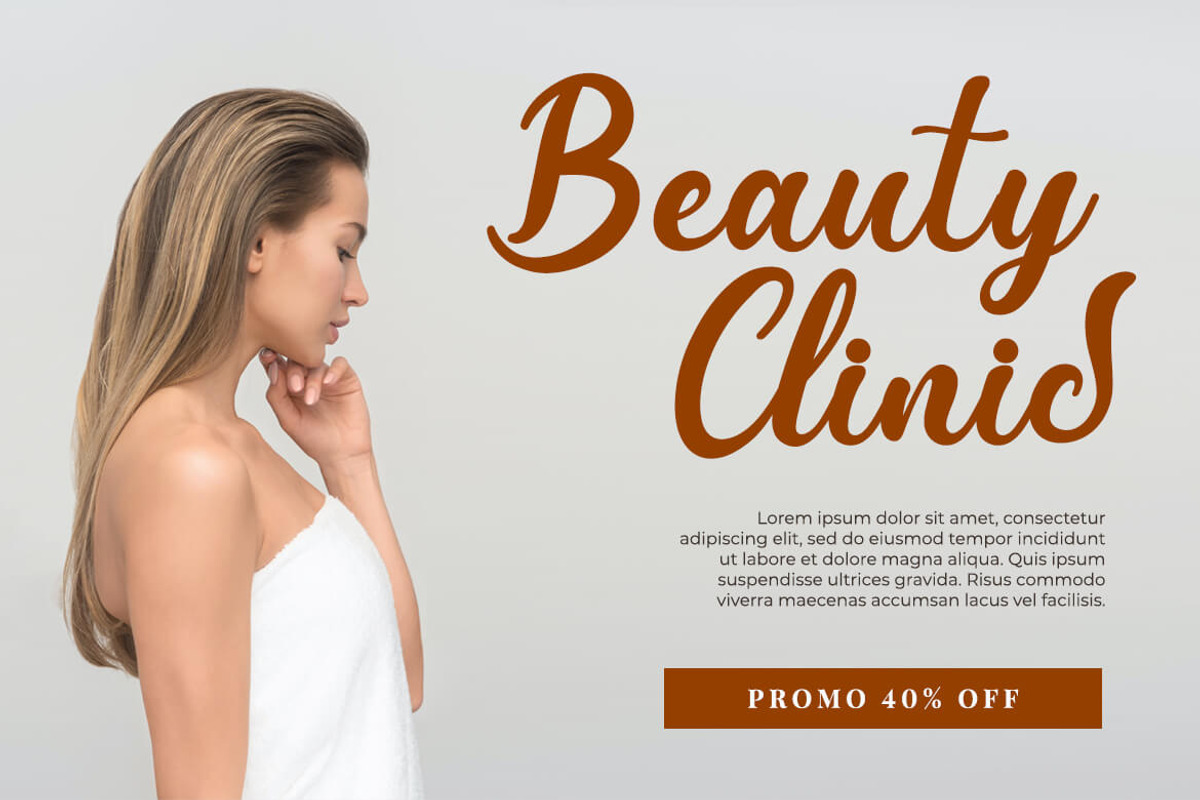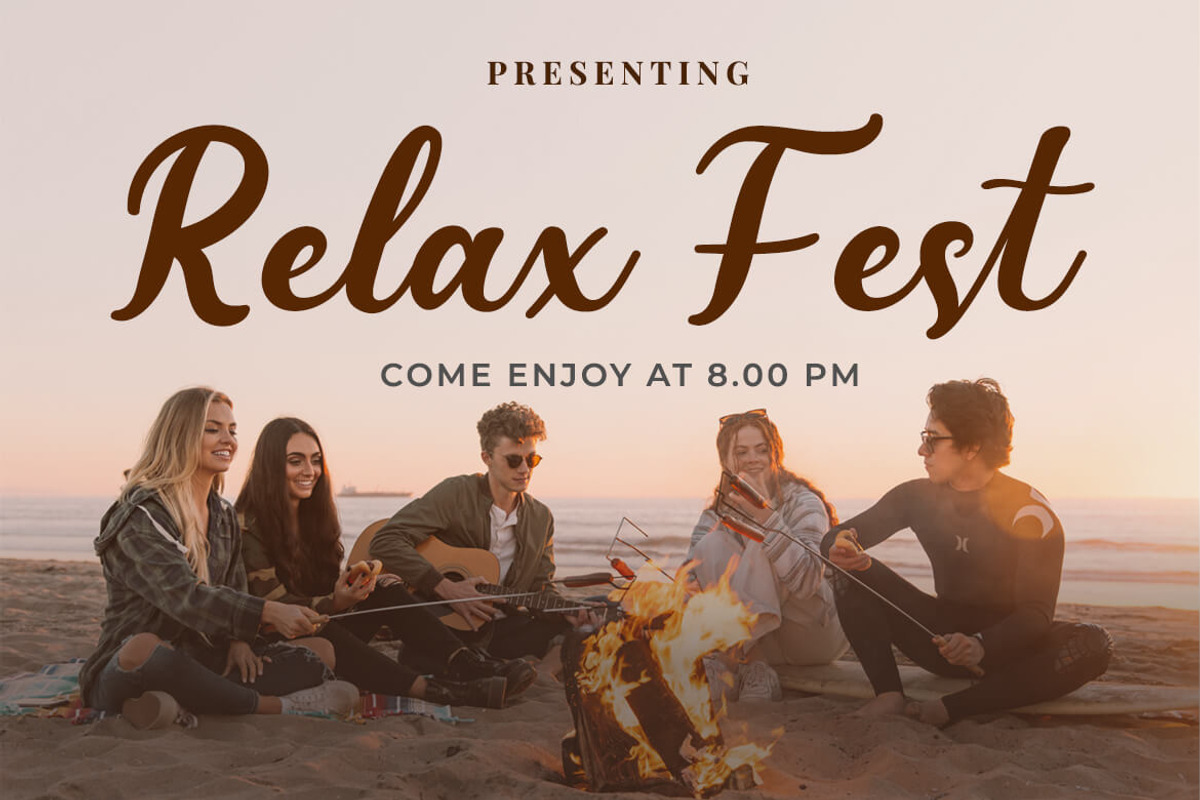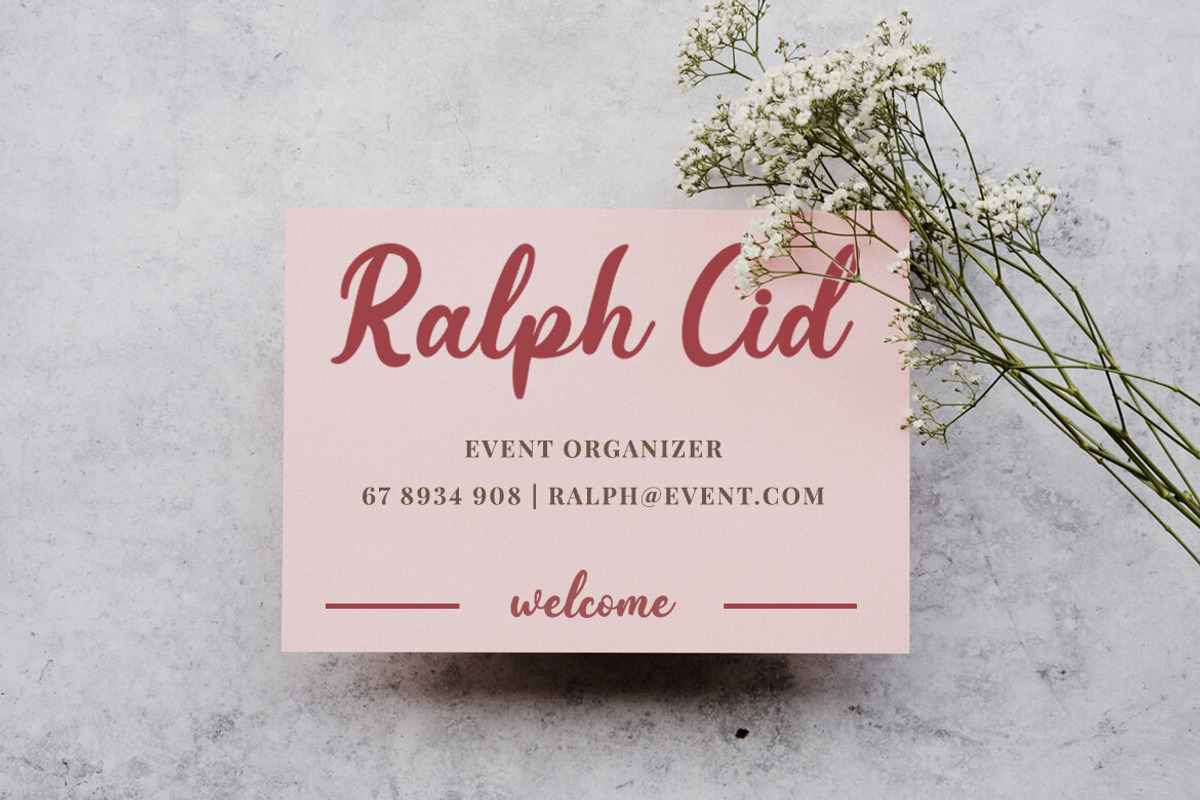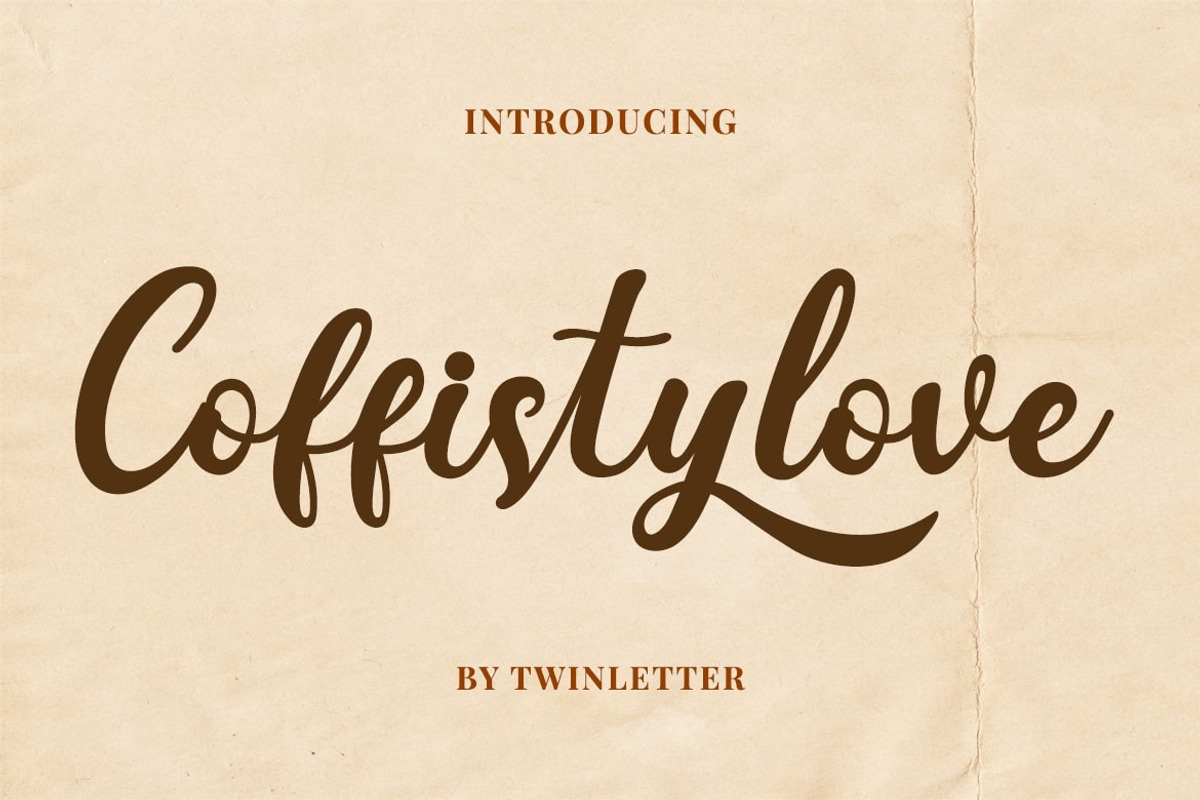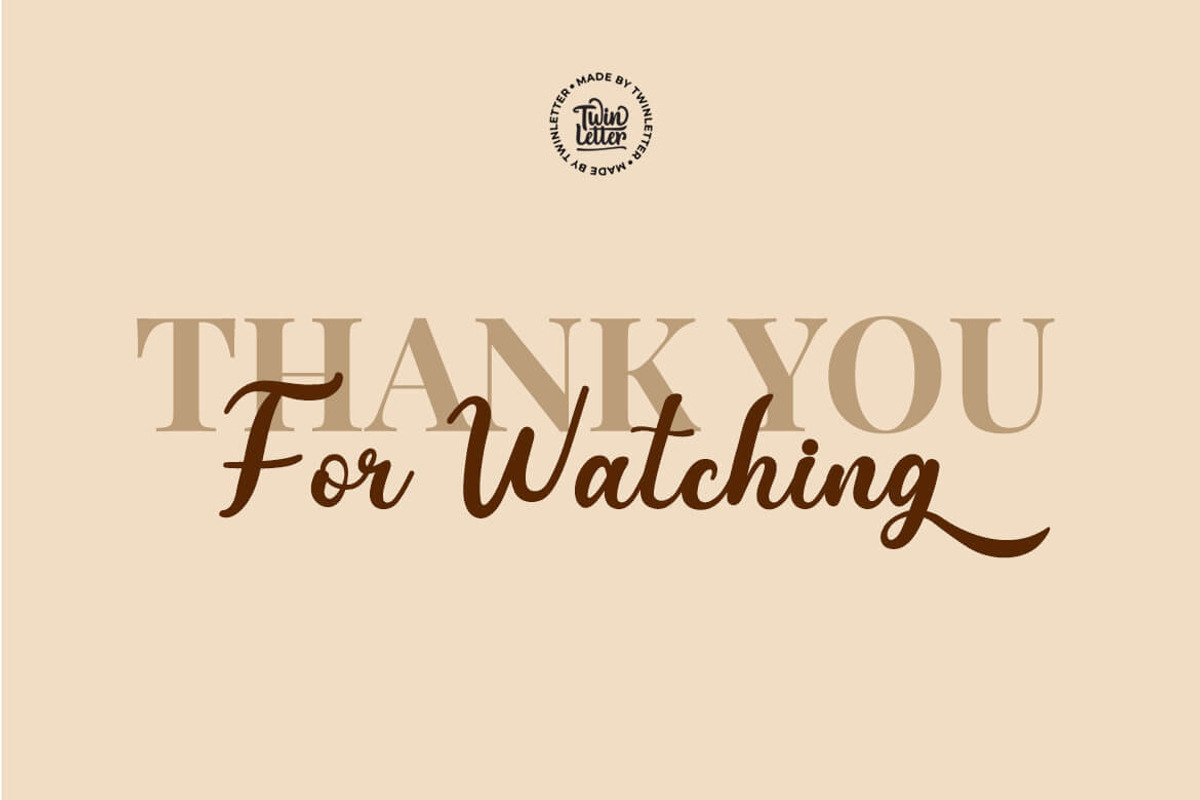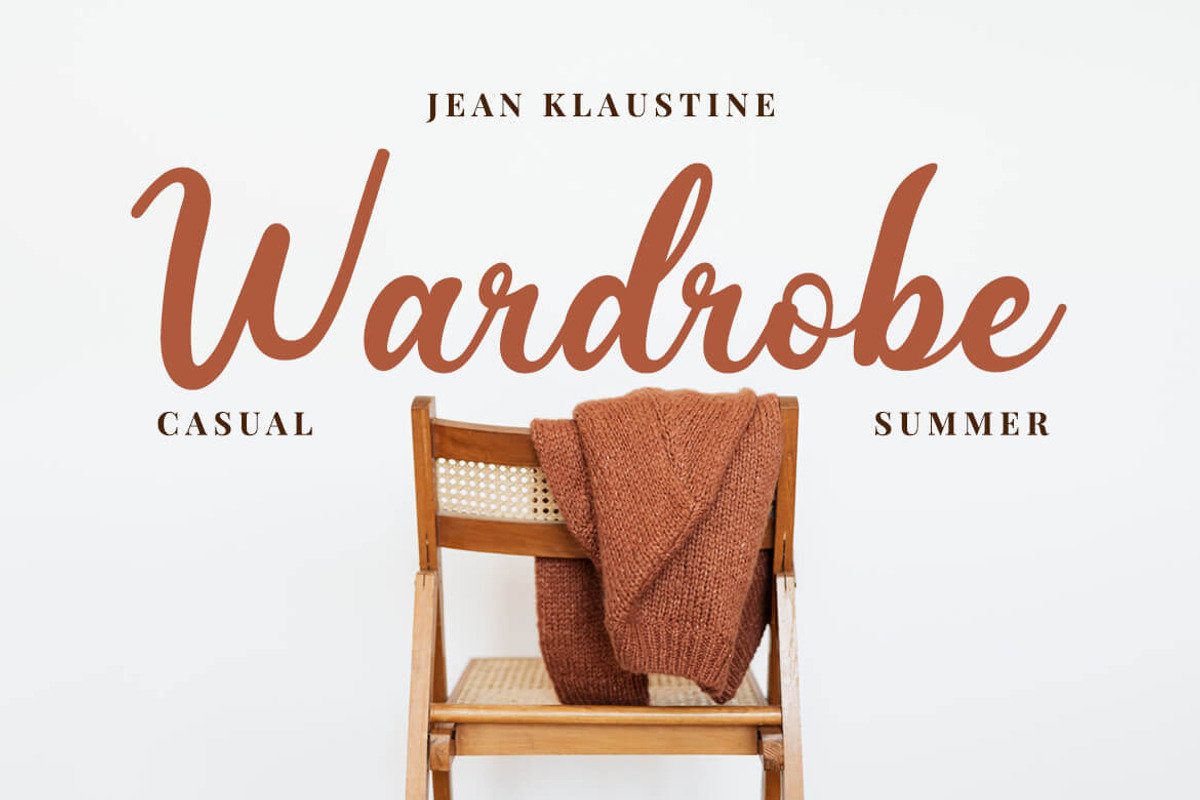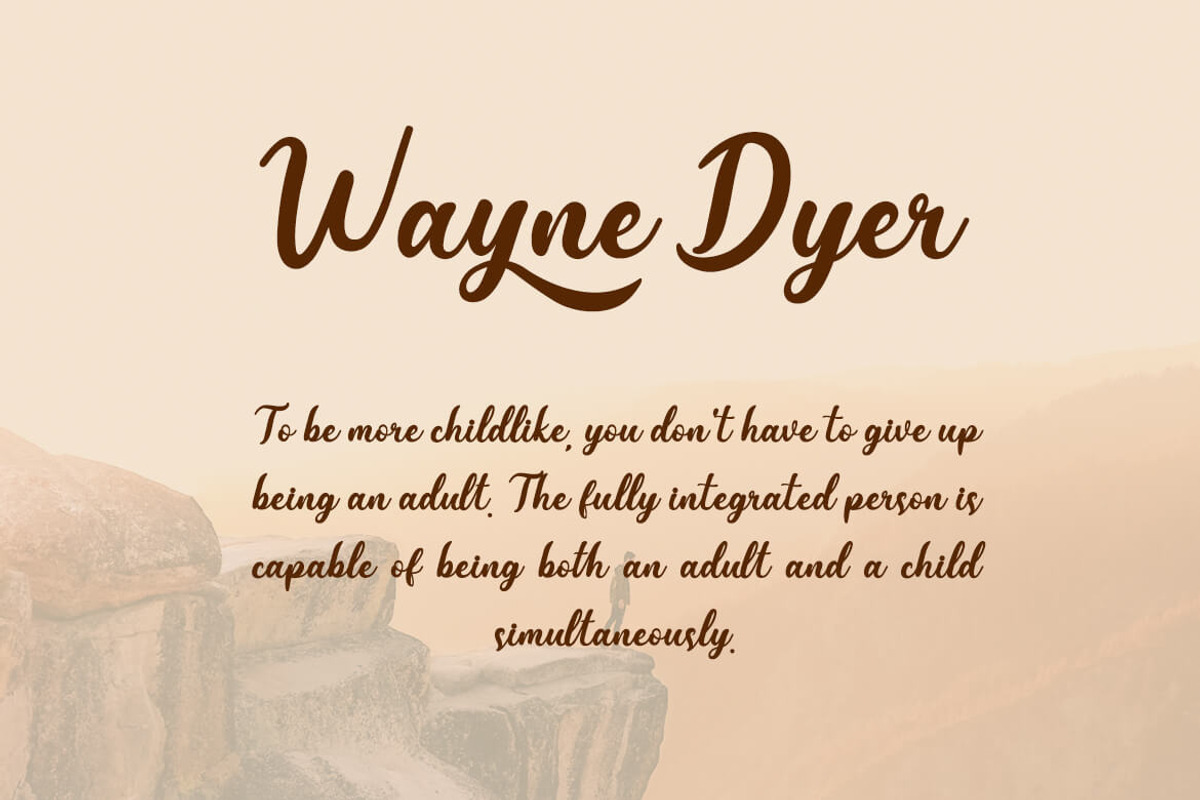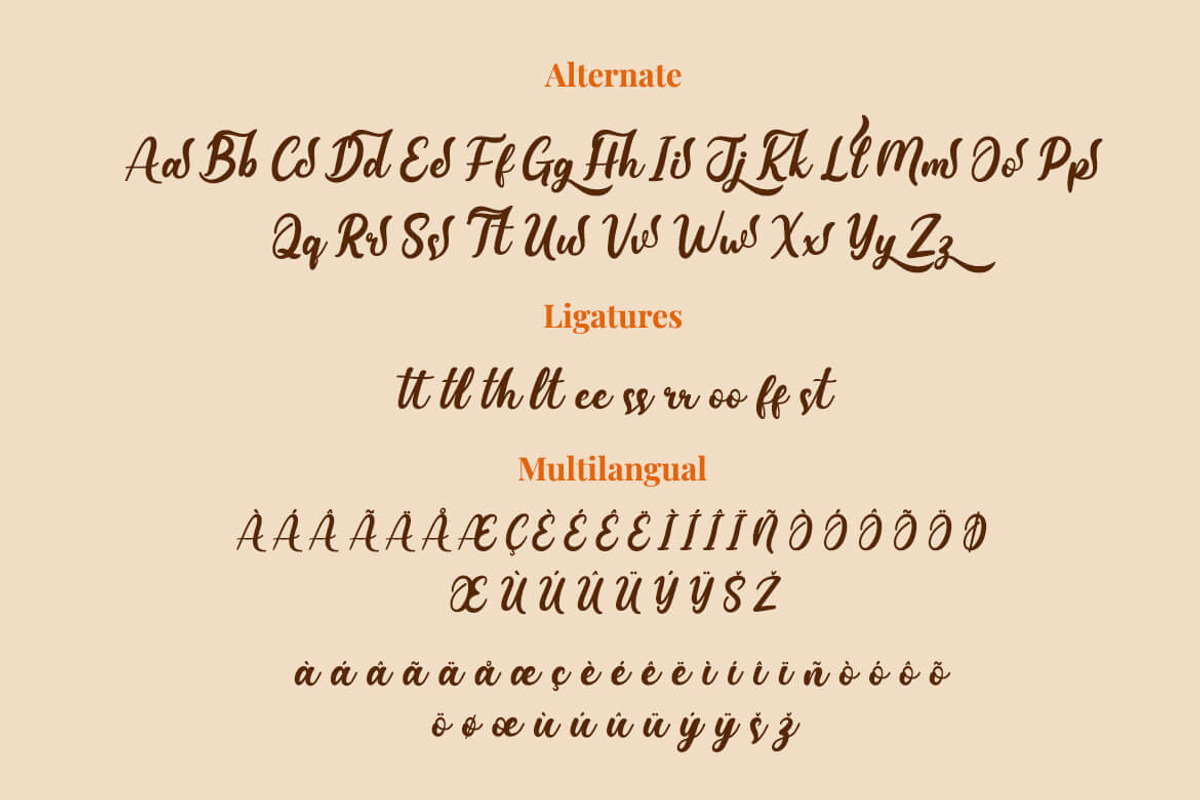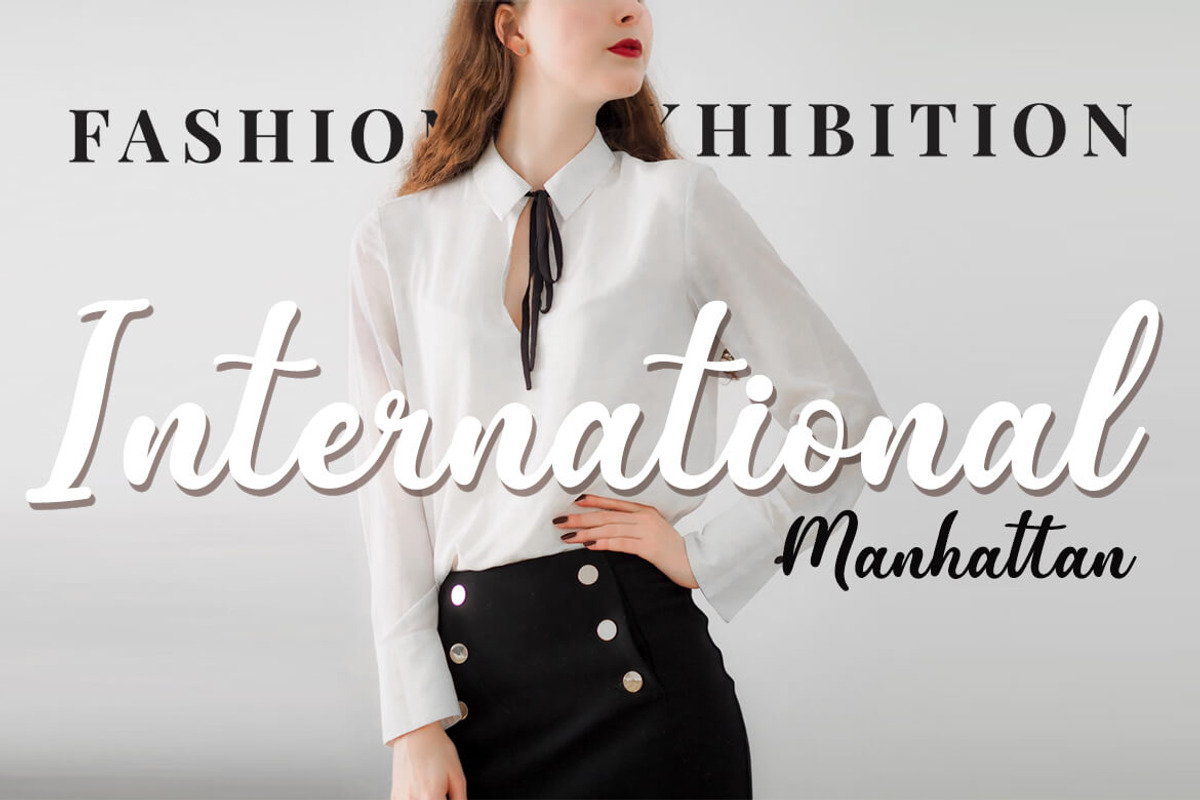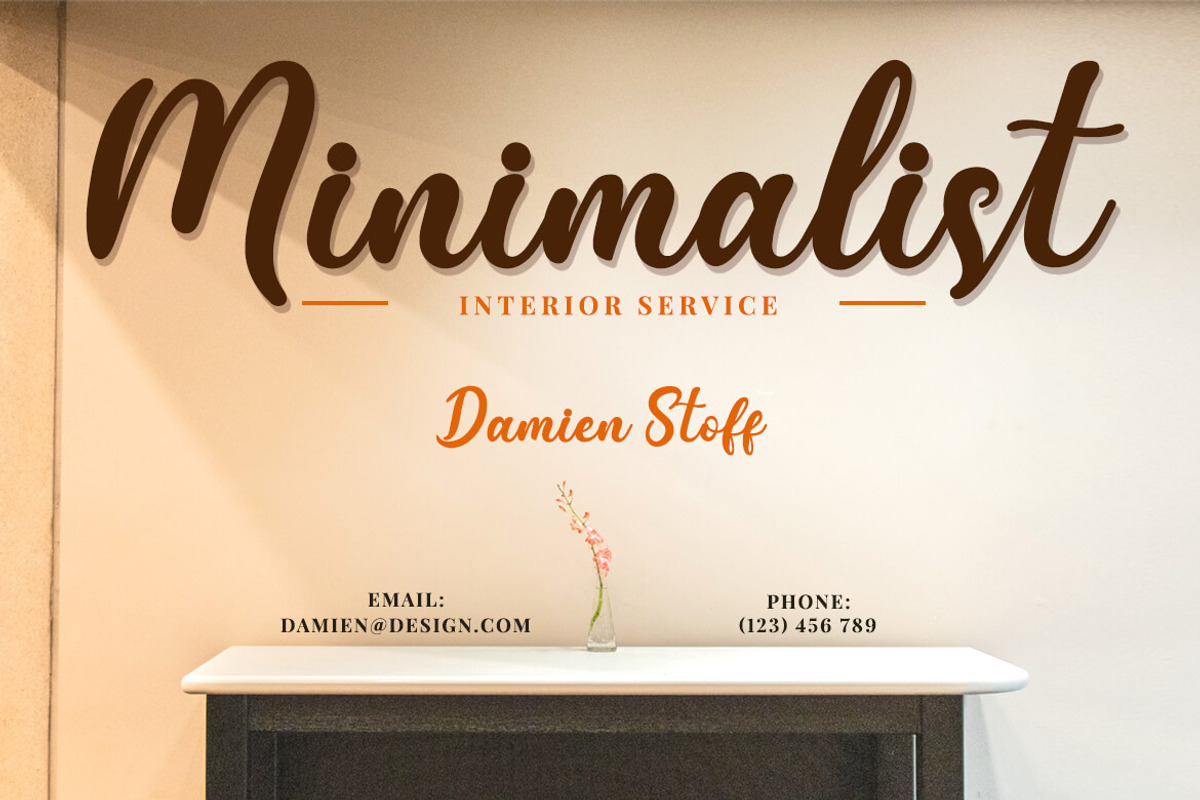
Coffistylove
Coffistylove is a font designed with amazing details in mind, resulting in a pleasant, elegant, and appealing font. Because it has a wonderful design quality, you can make works that will interest visitors with this font.
This typeface has a natural handwritten feel to it, yet it has been developed to create a portion and composition that meets your needs. As a result, this typeface is appropriate for craft, children’s writing, adventure posters, food banner titles, wedding invitations, product packaging logos, quotes, social media page covers, furniture banner headlines, book covers, and a variety of other uses.